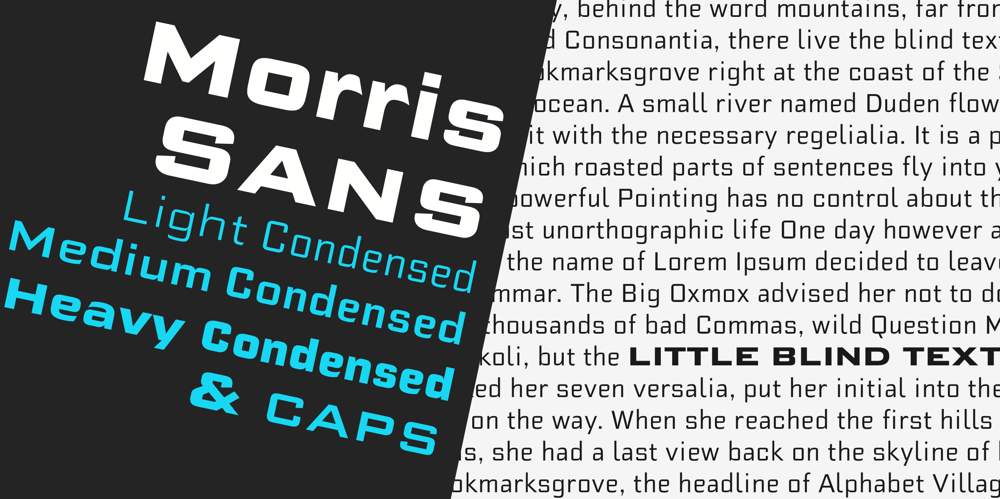
Morris Sans Font Family was designed by Morris Fuller Benton, Dan Reynolds and published by Linotype. Morris Sans contains 6 styles and family package options. Morris Sans is a newly revised and extended version of a small geometric family of typefaces originally produced by Morris Fuller Benton in 1930 for ATF. His initial design consisted of an alphabet of squared capital letters with a unique twist that characterized its appearance: corners with rounded exteriors and right-angle interiors. The types were intended for use in the fine print found on business cards, banking or financial forms, and contracts. But over the ensuing decades, this design became a popular element in all sorts of design environments, and several foundries revived the typeface in digital form. Since digital fonts are bicameral, with slots for both upper and lowercase letters, new cuts of the type opted filled the lowercase slots with small caps.In 2006, Linotype commissioned its own version of the typeface-an extension for 21st century use. Under the advisement of Linotype’s type director Akira Kobayashi, Dan Reynolds redrew the uppercase and added an original lowercase for the first time. Additionally, a number of extras were brought into the fonts, including six figure styles (tabular and proportional lining figures, tabular and proportional oldstyle figures, and special tabular and proportional small cap” figures). Small caps, which have become an iconic element over time, are accessible in each font as an OpenType feature. To differentiate this version from the original, Linotype’s new family is named Morris Sans, in honor of Morris Fuller Benton.All fonts in the Morris Sans family are OpenType Com fonts; they include a character set capable of setting 48 European languages that employ the Roman alphabet, including all Central and Eastern Europe languages, those from the Baltics, and Turkish. This glyph coverage extends to the small caps as well.Morris Sans is a wide typeface, especially in its regular widths; the condensed faces set a more conventional line of text. The new lowercase letters are less geometric than the uppercase, except for those that share the same basic forms (e.g., c, o, and s). Instead of following this geometric trend, the new lowercase tends to strengthen the humanist elements that were present in several characters from the original type, including the uppercase D and the figures 5, 6, and 9. Morris Sans also sports a number of glyphic flares, like the stroke found on the original uppercase Q.Morris Sans is a clean, modern design best suited for headlines, advertising, posters, expressive signage (especially on storefronts), and corporate identity work.”